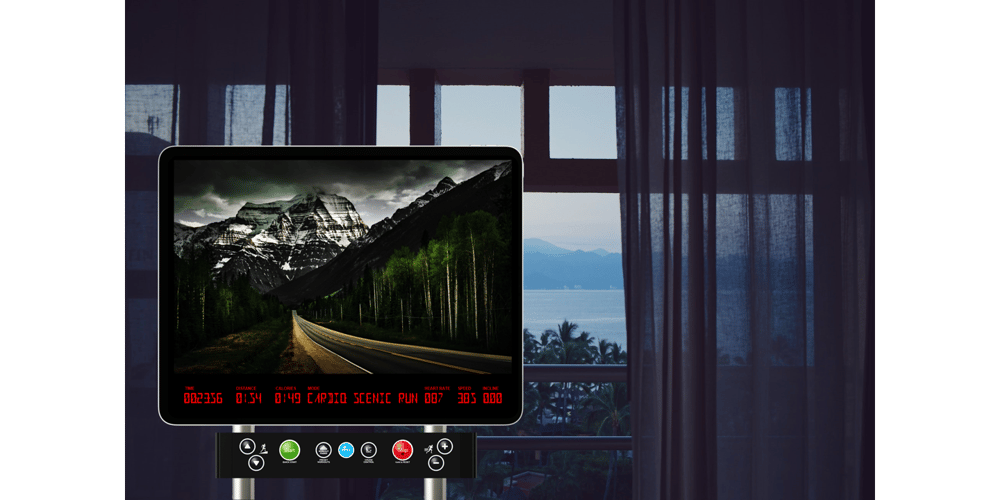
Al Seg33 Font Family was designed by Nihar Mazumdar and published by Nihar Mazumdar. Al Seg33 contains 2 styles and family package options. Al Seg 33 is a moderately dense alphanumeric display. The 33 segments are made up of eight outer segments, and twenty-four inside segments, and a center dot. It has five diagonals in each corner.